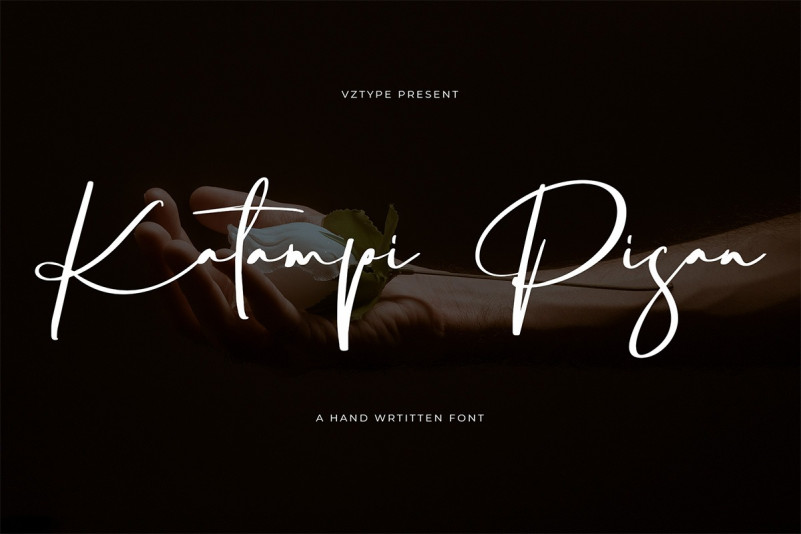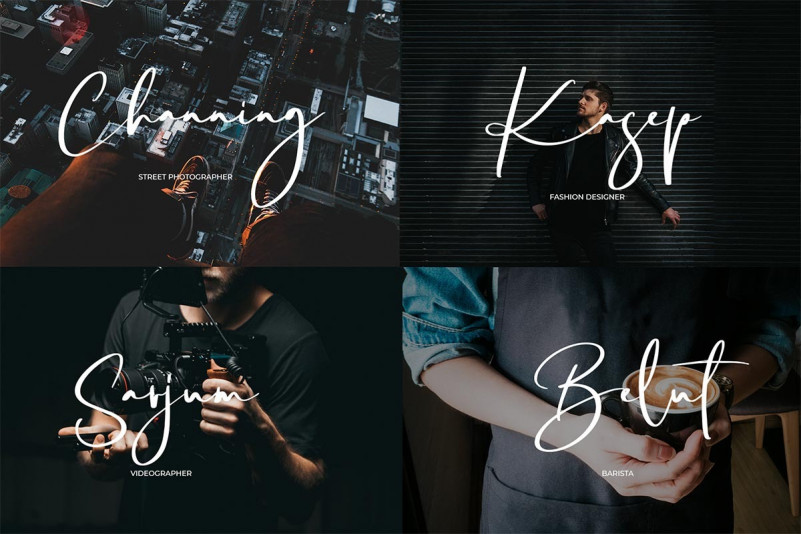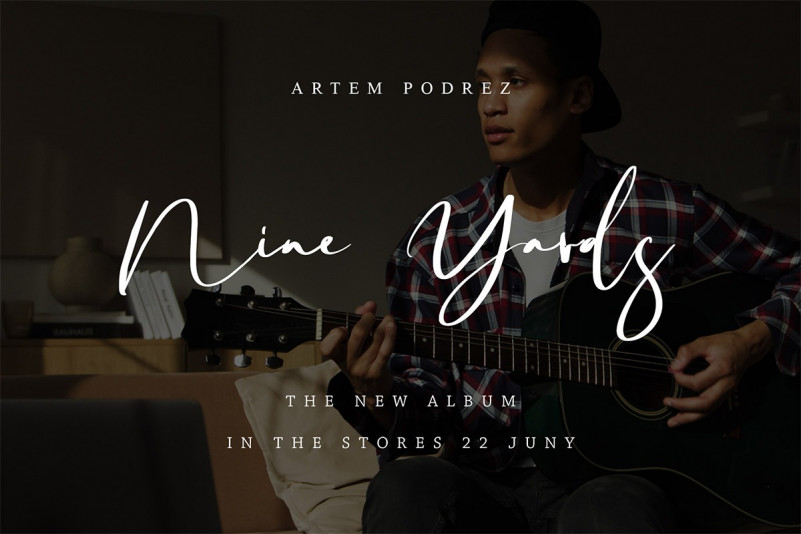
Hegomoni Script Font
Hegomoni Signature is a signature font that you can use to make a design. This is perfect for BRANDING,funny logos with this font and poster headline, magazines, book titles, business cards, beautiful fashion designs, advertisements, product designs, wedding invitation, signature or handwritten quote.